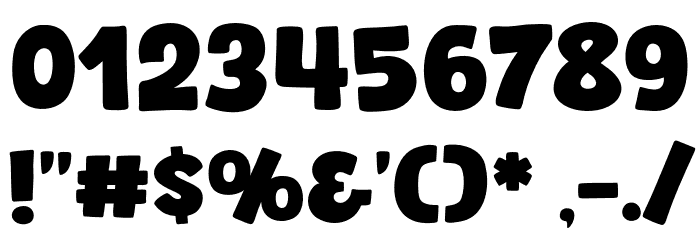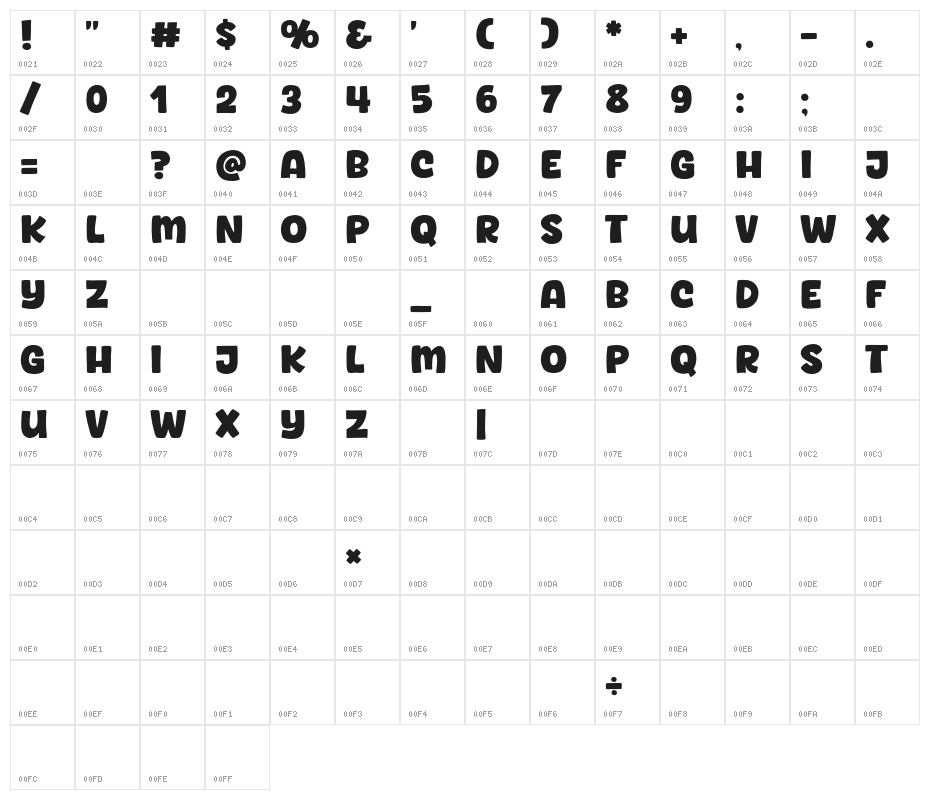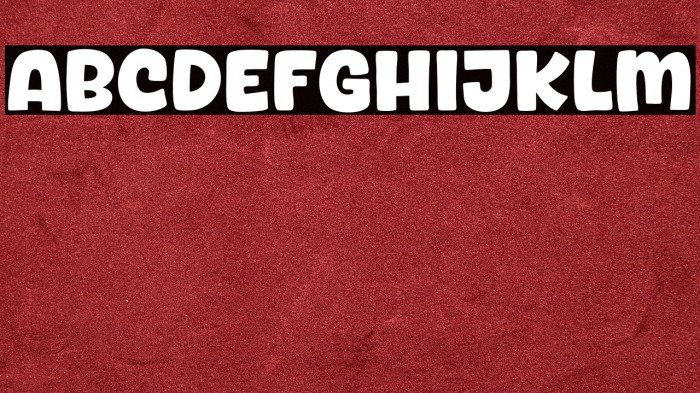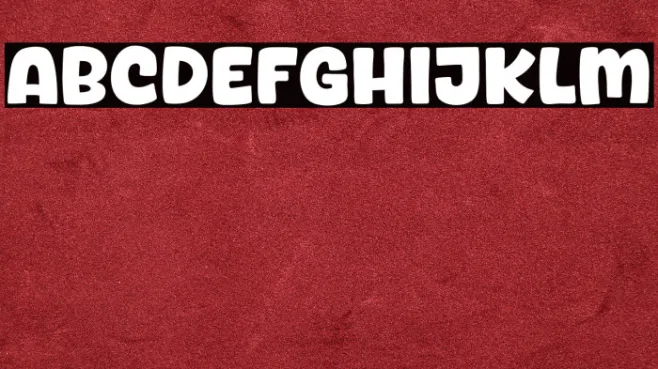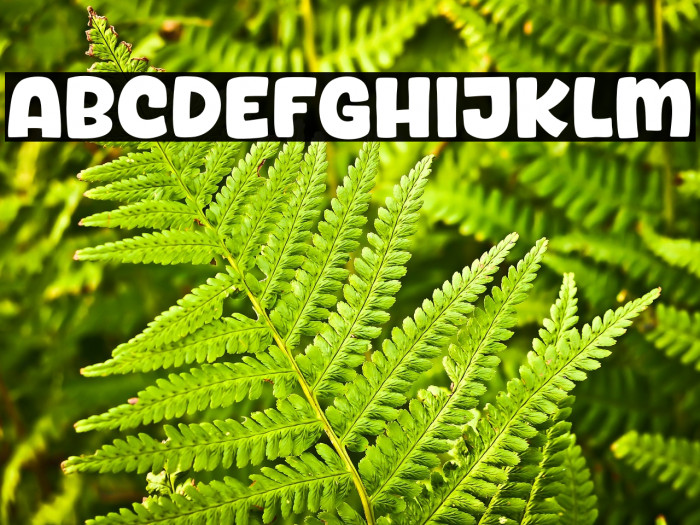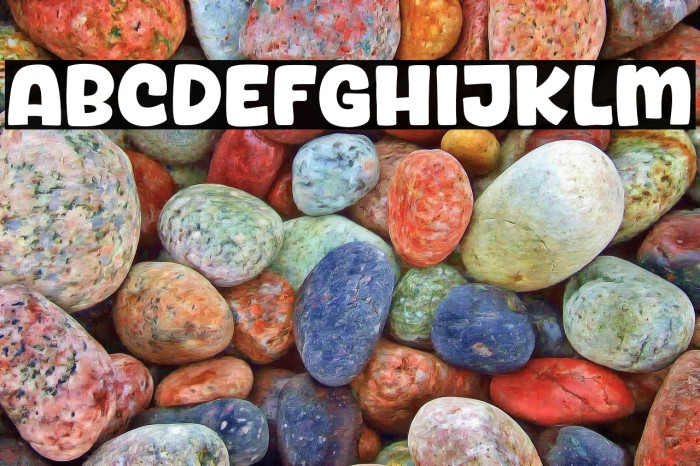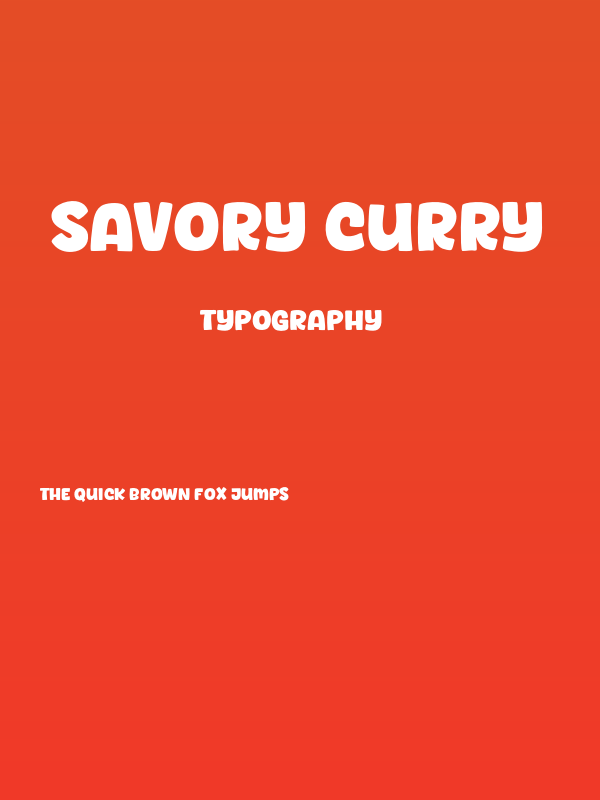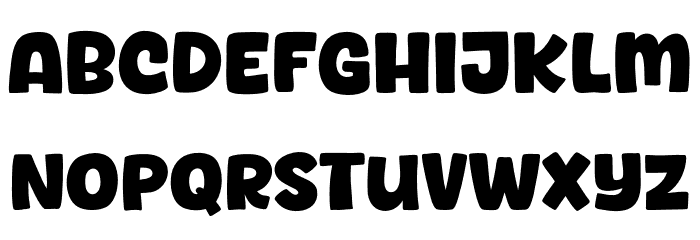
Savory Curry Font
Savory Curry Description
This font features a bold and playful design with rounded edges and a slightly irregular shape, giving it a friendly and approachable appearance. The characters are thick and substantial, providing a strong visual impact. The overall style is reminiscent of hand-drawn or cartoon-like lettering, making it suitable for informal and fun projects. The letters are evenly spaced, ensuring readability while maintaining a whimsical charm. The numbers and special characters follow the same playful aesthetic, adding consistency across the font set.
| Overall Style | Playful, Cartoon-like |
| Proposed Projects | Ideal for children's books, playful branding, posters, and casual invitations. |